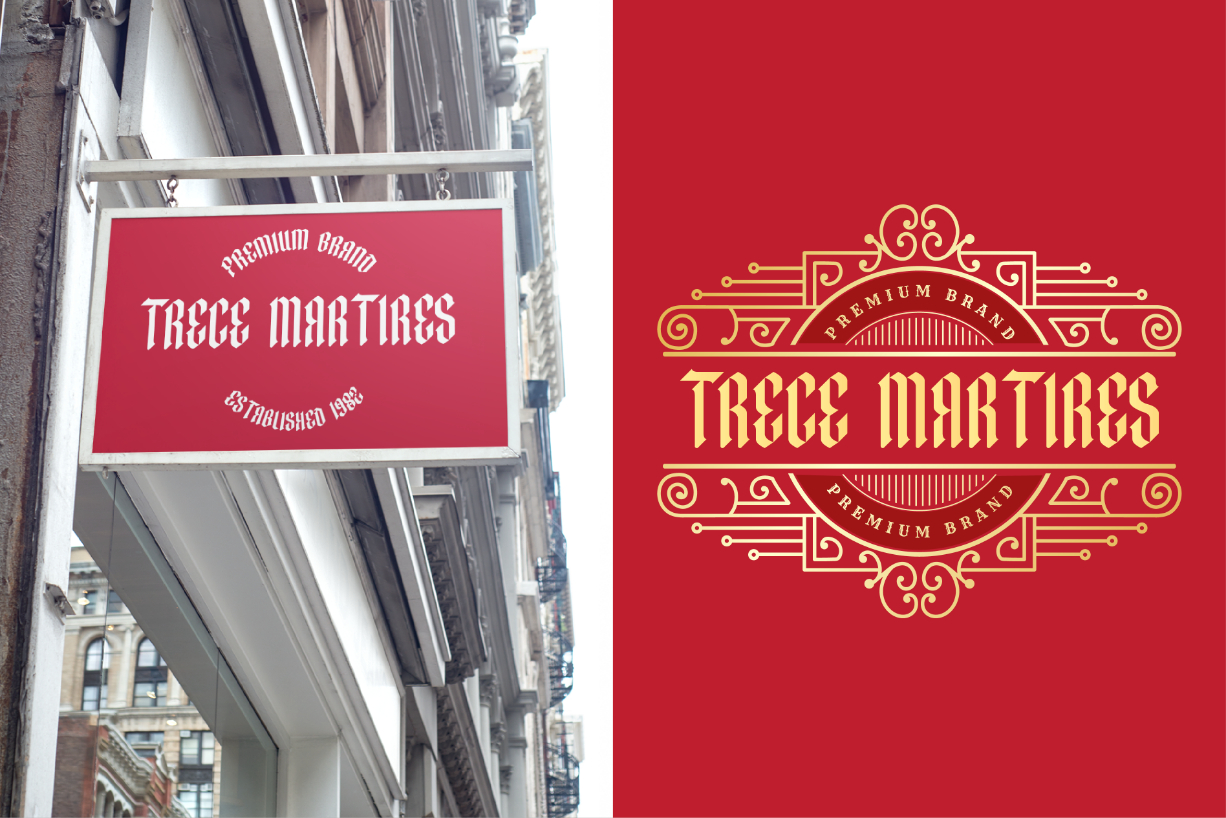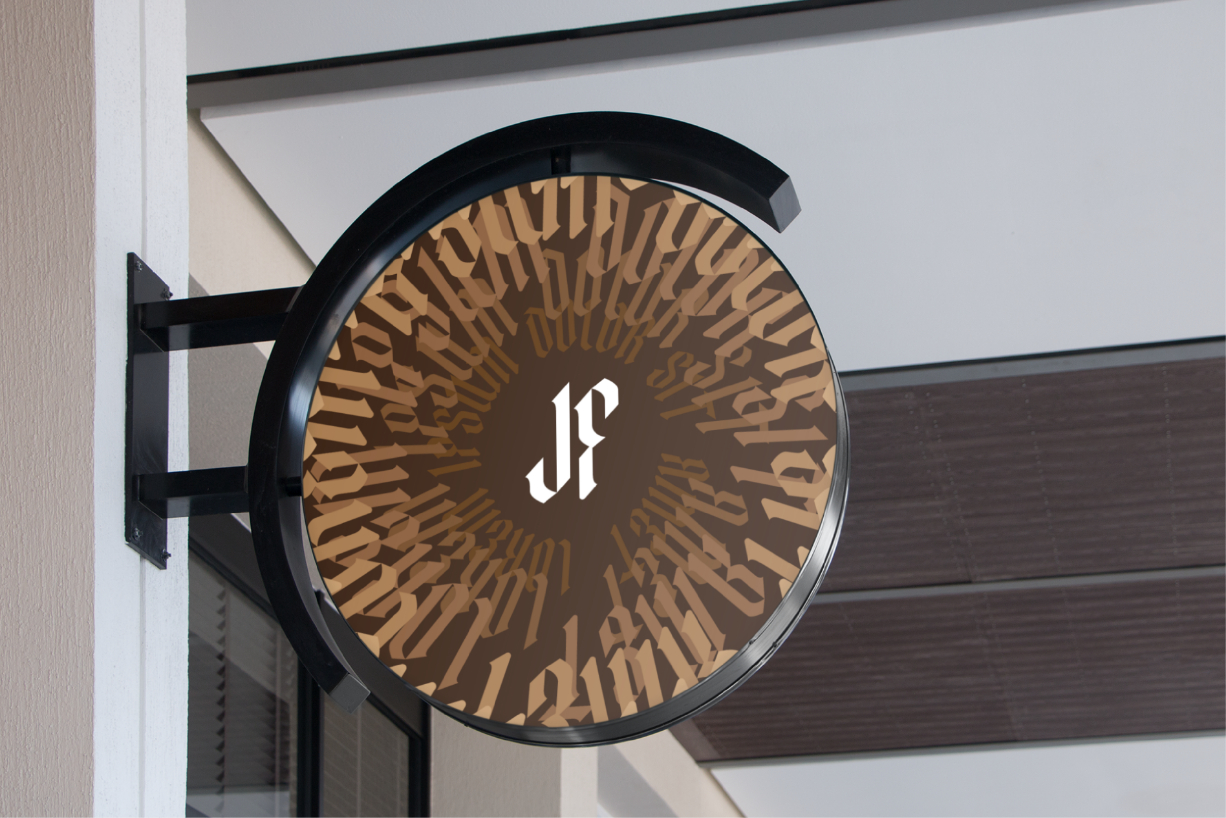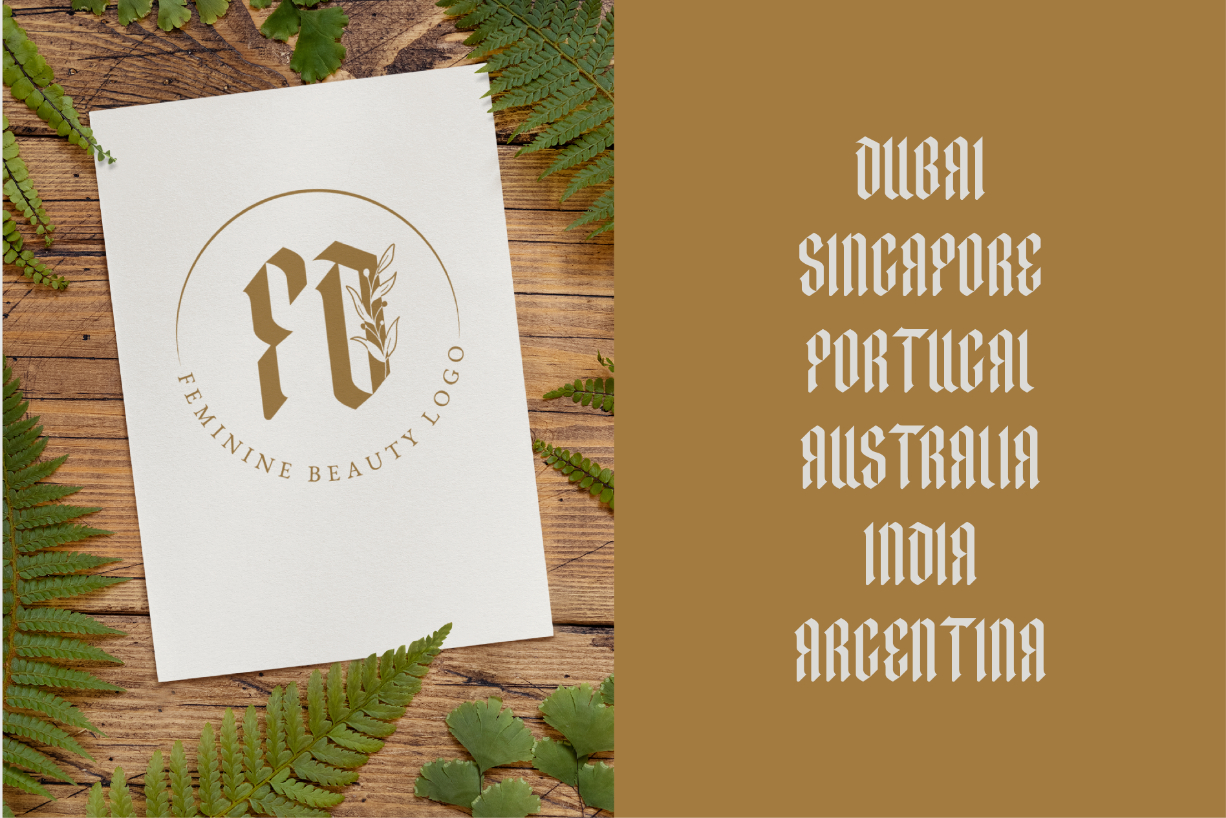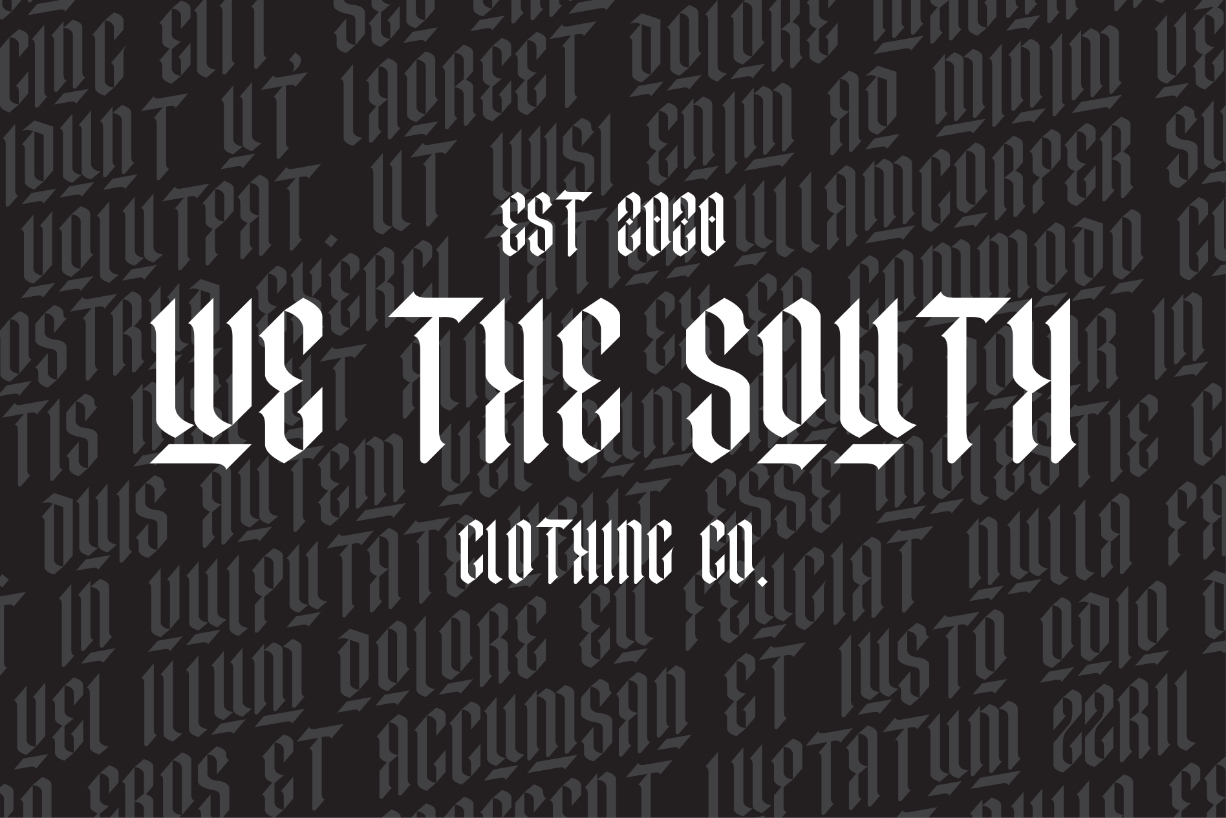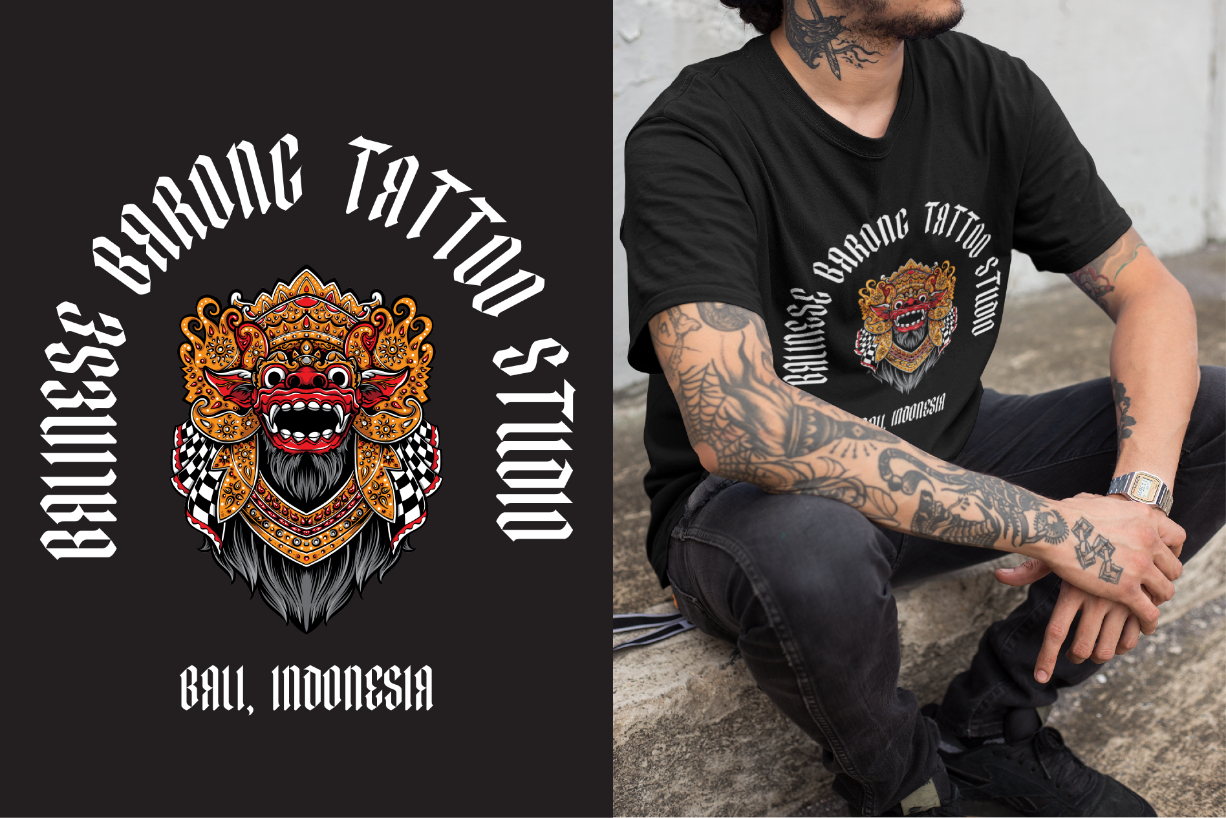
Imperial Gothic Font
About Imperial Gothic Font
Imperial Gothic is a stunning and daring blackletter font that will impress with its stylish features. Use it for product packaging, branding, or other projects that need bold and stylish typography!